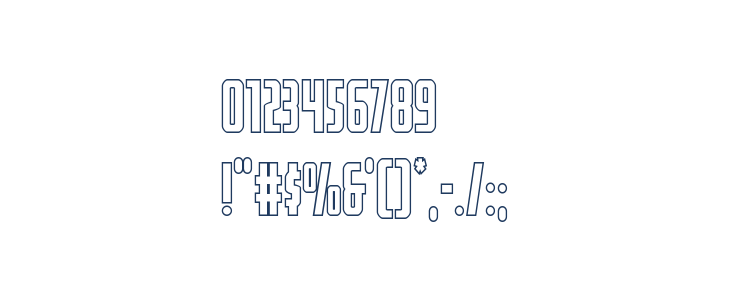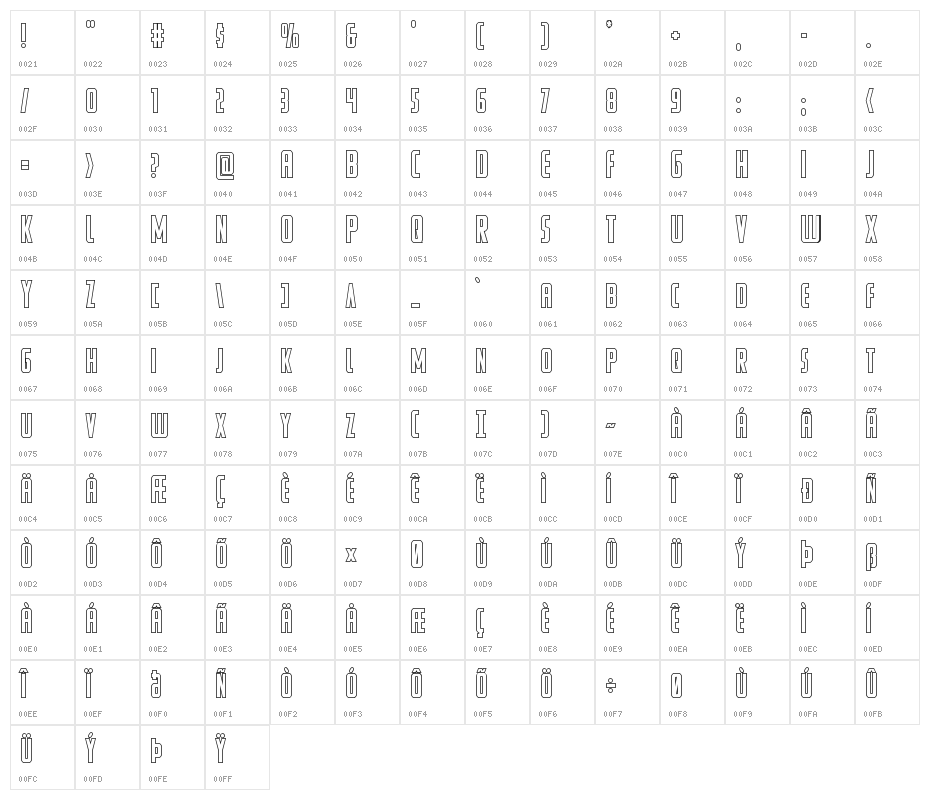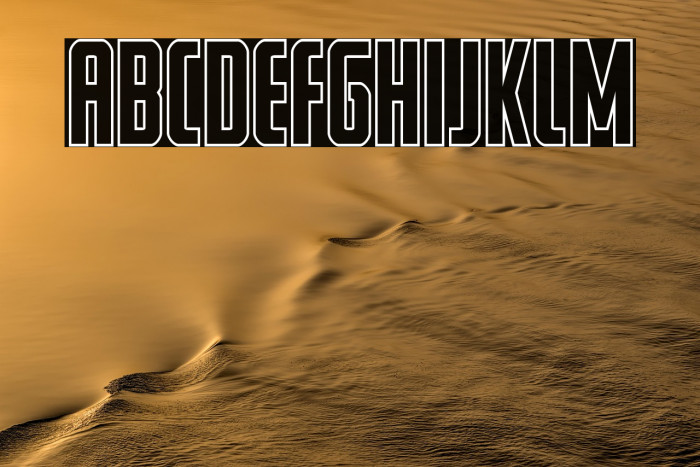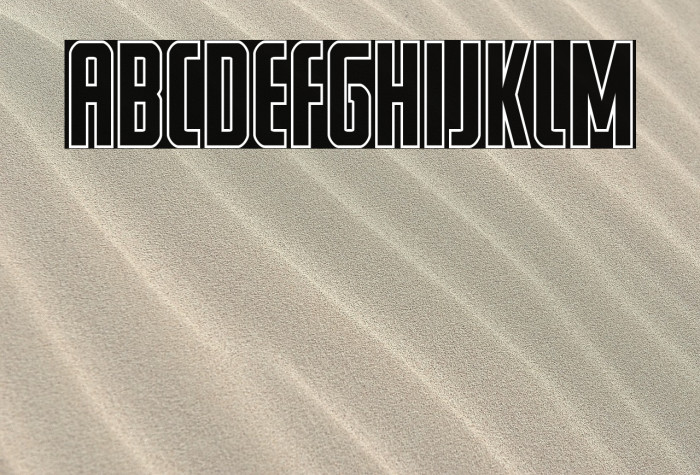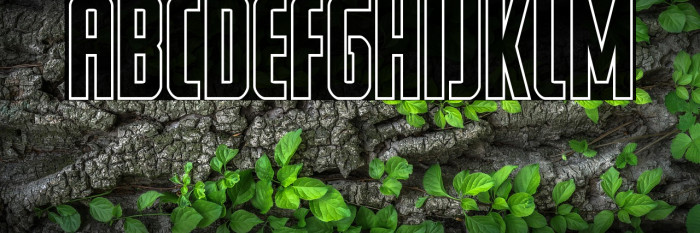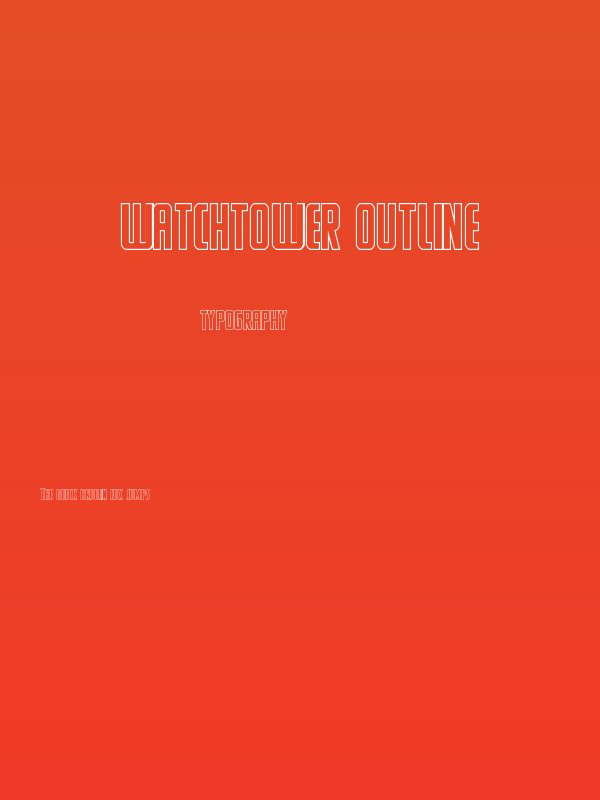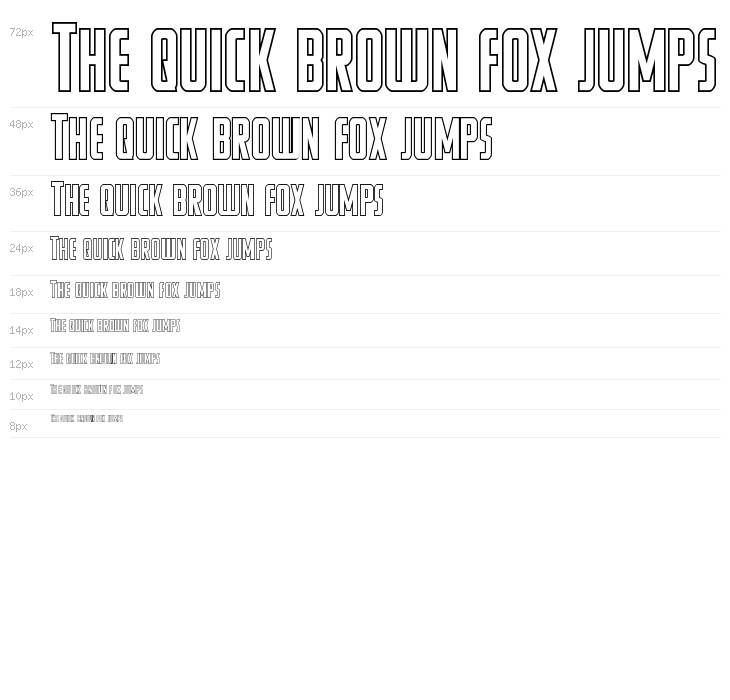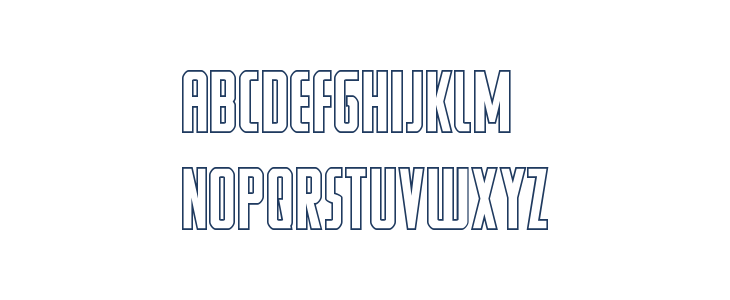
Watchtower Outline Font
Watchtower Outline Description
This font features a bold, outlined style that gives it a striking and modern appearance. The characters are uppercase and have a geometric structure, with clean lines and sharp angles. The outline effect creates a sense of depth and dimension, making it ideal for attention-grabbing designs. The uniformity in character height and width contributes to a cohesive look, while the spacing between characters is balanced, ensuring readability. This font is particularly suitable for projects that require a strong visual impact.
| Proposed Projects | Ideal for posters, headlines, logos, and branding materials that require a bold statement. |